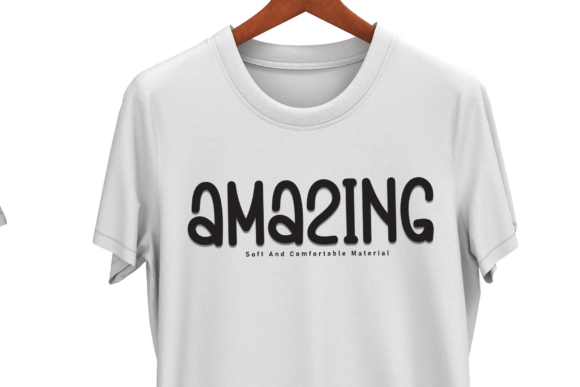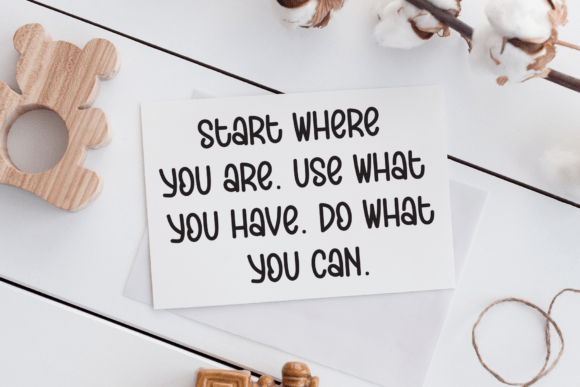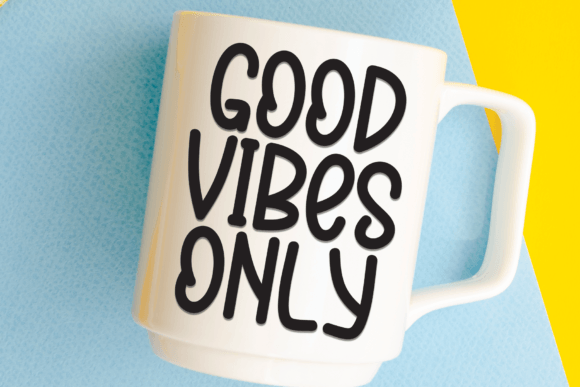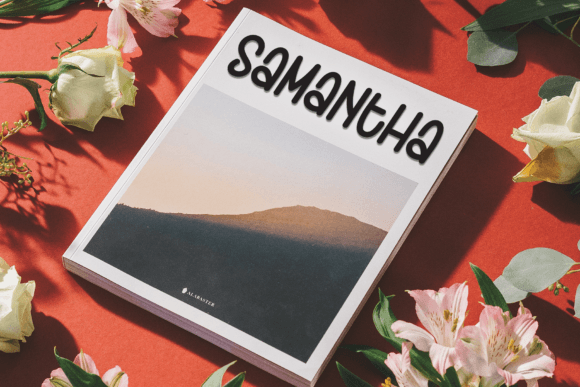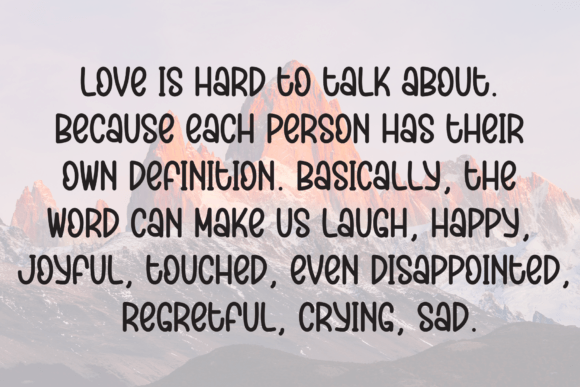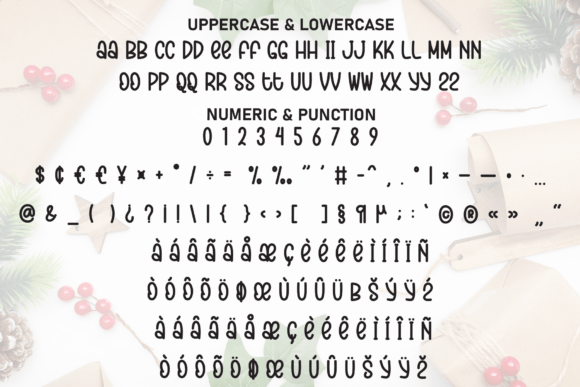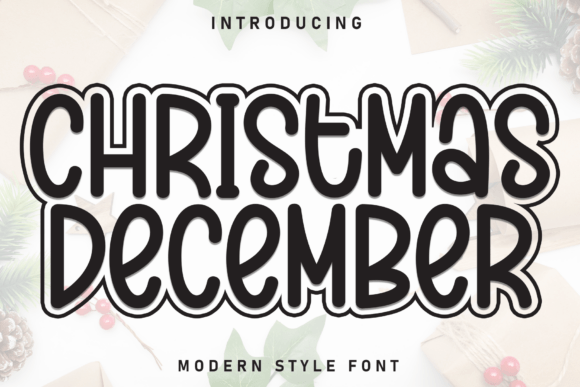
Christmas December Font: The Perfect Holiday Companion for Designers and Crafters
As the holiday season approaches, designers and crafters are on the lookout for the perfect font to add a touch of festive magic to their Christmas-themed designs. Look no further than the Christmas December Font, a playful and modern typeface that’s sure to bring joy and cheer to all your holiday projects.
A Festive and Fun Font for the Holiday Season
Christmas December Font is a charming and whimsical typeface that’s specifically designed to capture the spirit of the holiday season. Its bold, rounded letters and playful personality make it the ideal choice for a wide range of Christmas-themed designs, from greeting cards and party invitations to gift tags, posters, and social media graphics.
Key Features of Christmas December Font
- Playful and Modern Design: Christmas December Font boasts a fresh and modern design that’s perfect for creating fun and festive holiday designs.
- Bold and Rounded Letters: The font’s bold and rounded letters give it a friendly and approachable feel that’s sure to appeal to designers and crafters of all levels.
- Festive Personality: This charming typeface has a distinctly festive personality that’s guaranteed to add a touch of holiday cheer to all your designs.
Perfect for a Wide Range of Holiday Designs
Christmas December Font is an incredibly versatile typeface that can be used for a wide range of holiday designs, including:
- Greeting Cards: Create beautiful and festive holiday greeting cards that are sure to delight friends and family.
- Party Invitations: Design fun and playful party invitations that set the tone for a fantastic holiday celebration.
- Gift Tags: Add a personal touch to your gifts with custom gift tags that feature the Christmas December Font.
- Posters: Create eye-catching holiday posters that showcase the font’s bold and playful personality.
- Social Media Graphics: Use Christmas December Font to create engaging and festive social media graphics that spread holiday cheer.
Why Choose Christmas December Font?
So why choose Christmas December Font for your holiday designs? Here are just a few reasons why this font stands out from the crowd:
- Unique and Festive Design: Christmas December Font has a unique and festive design that’s sure to make your holiday designs stand out.
- Easy to Read: The font’s bold and rounded letters make it easy to read, even at small sizes.
- Fun and Approachable Style: The font’s fun and approachable style brings a joyful energy to every project, making it perfect for capturing the magic of the season.
Tips for Using Christmas December Font
Here are a few tips for getting the most out of Christmas December Font:
- Experiment with Colors: Try pairing Christmas December Font with a range of festive colors to create a unique and eye-catching design.
- Mix and Match Fonts: Combine Christmas December Font with other fonts to create a unique and visually appealing design.
- Use it for Headlines and Titles: Christmas December Font is perfect for headlines and titles, where its bold and playful personality can really shine.
Christmas December Font is a fantastic addition to any designer’s or crafter’s toolkit. Its playful and modern design, bold and rounded letters, and festive personality make it the perfect choice for a wide range of holiday designs. Whether you’re creating greeting cards, party invitations, gift tags, posters, or social media graphics, this charming typeface is sure to bring joy and cheer to all your holiday projects. So why wait? Download Christmas December Font today and start creating your own festive and fun holiday designs!